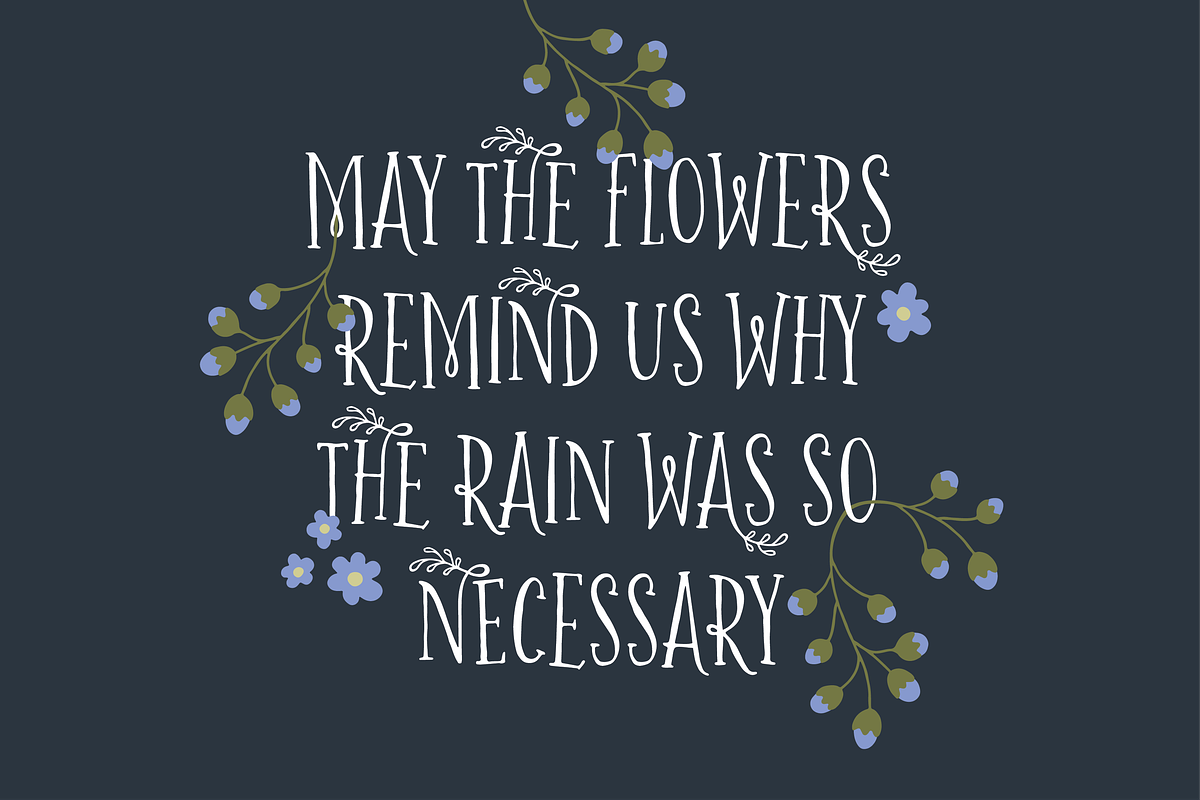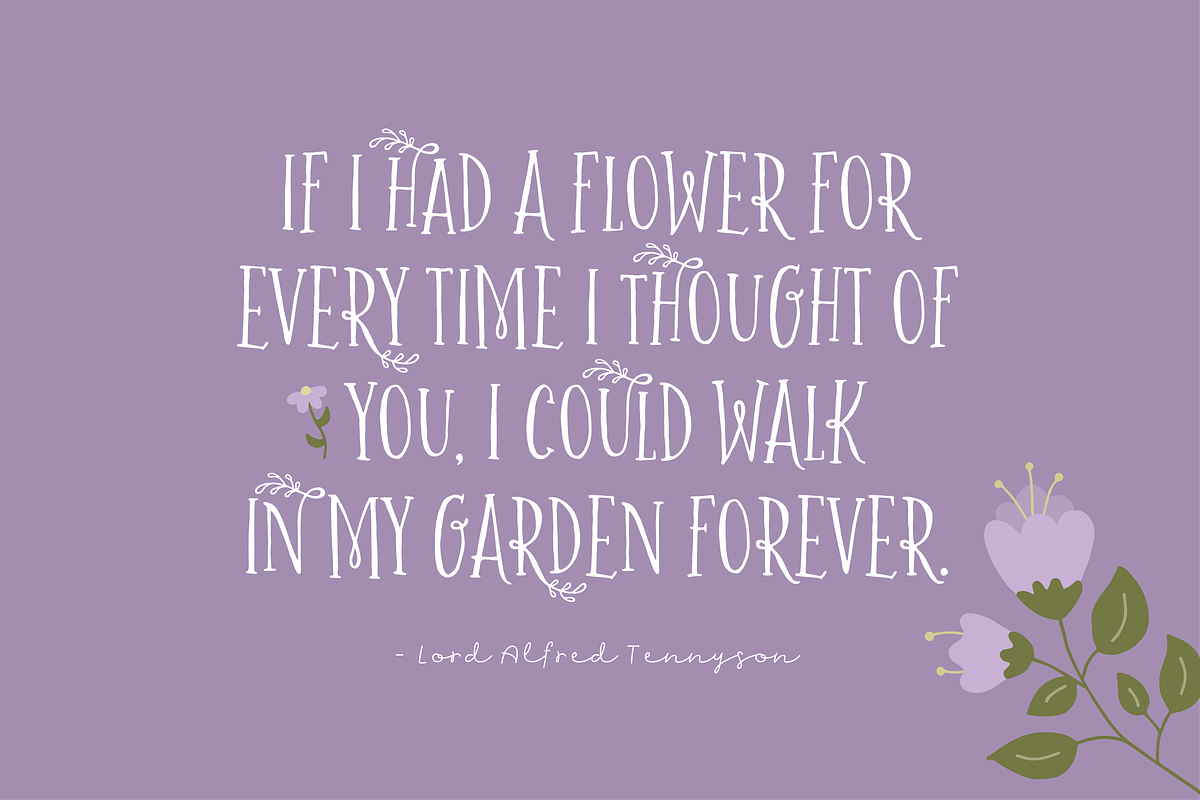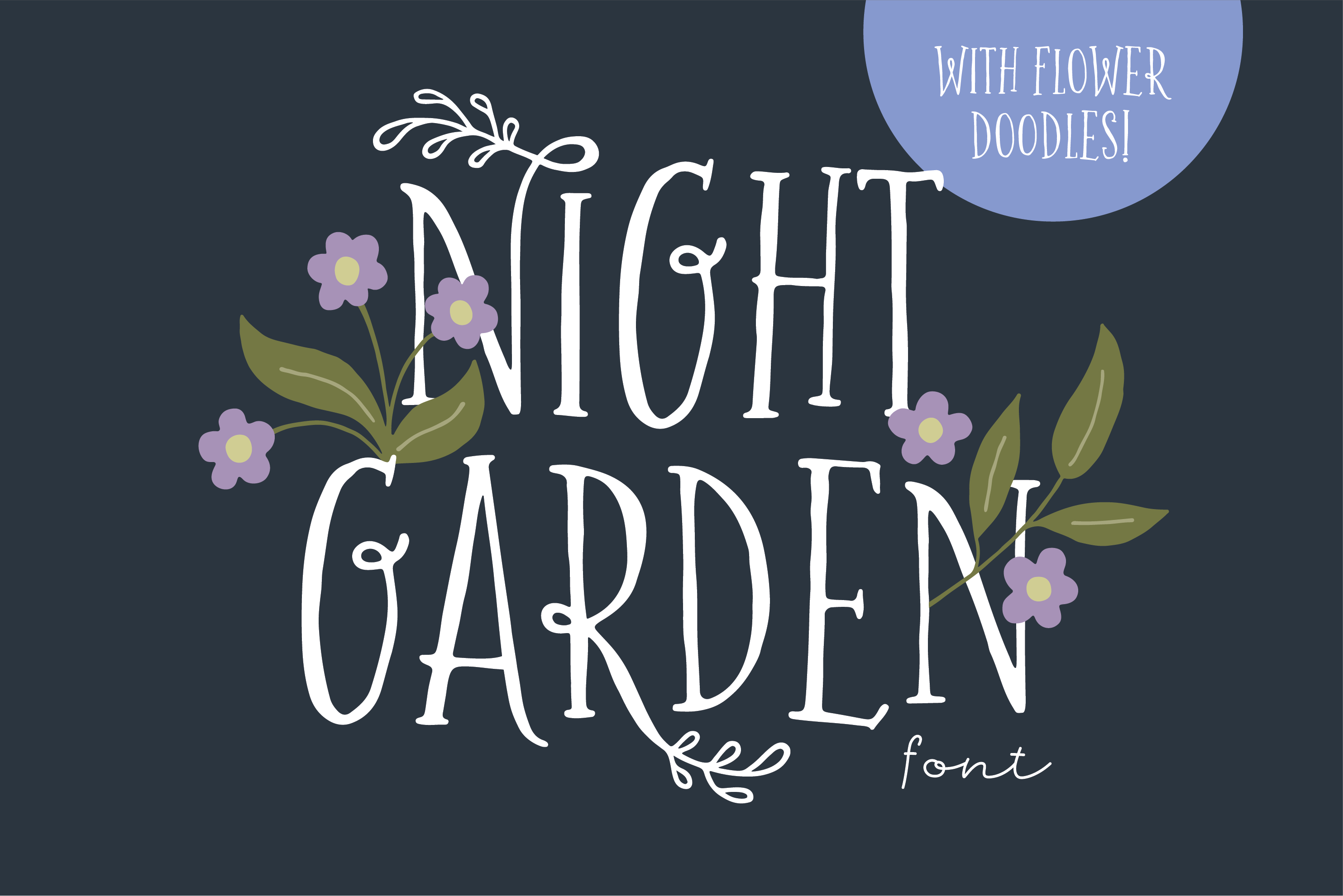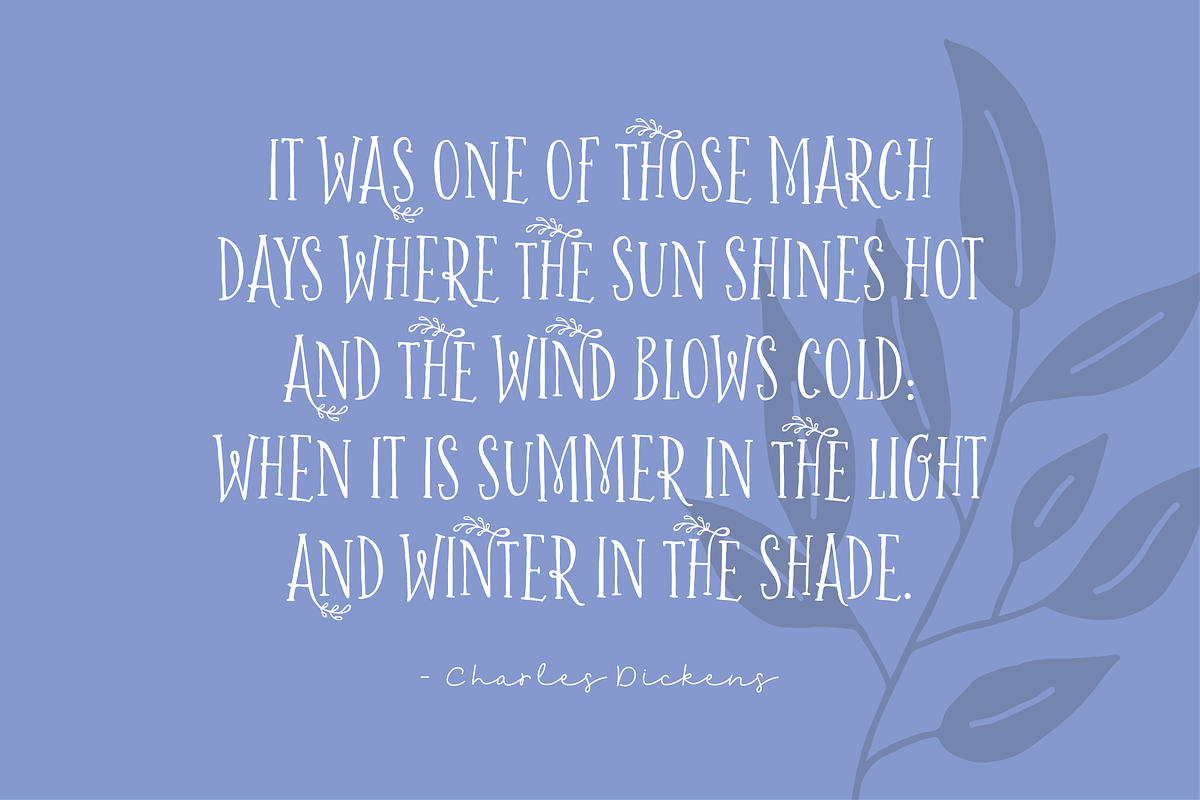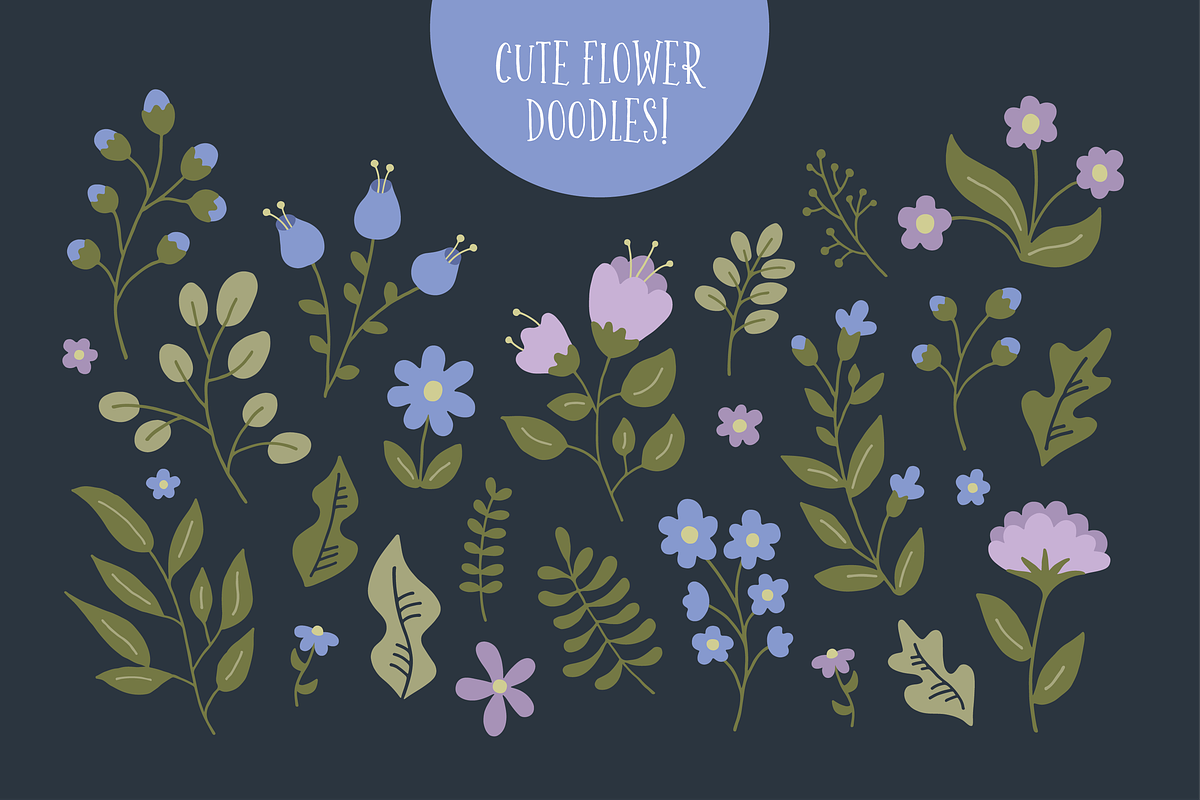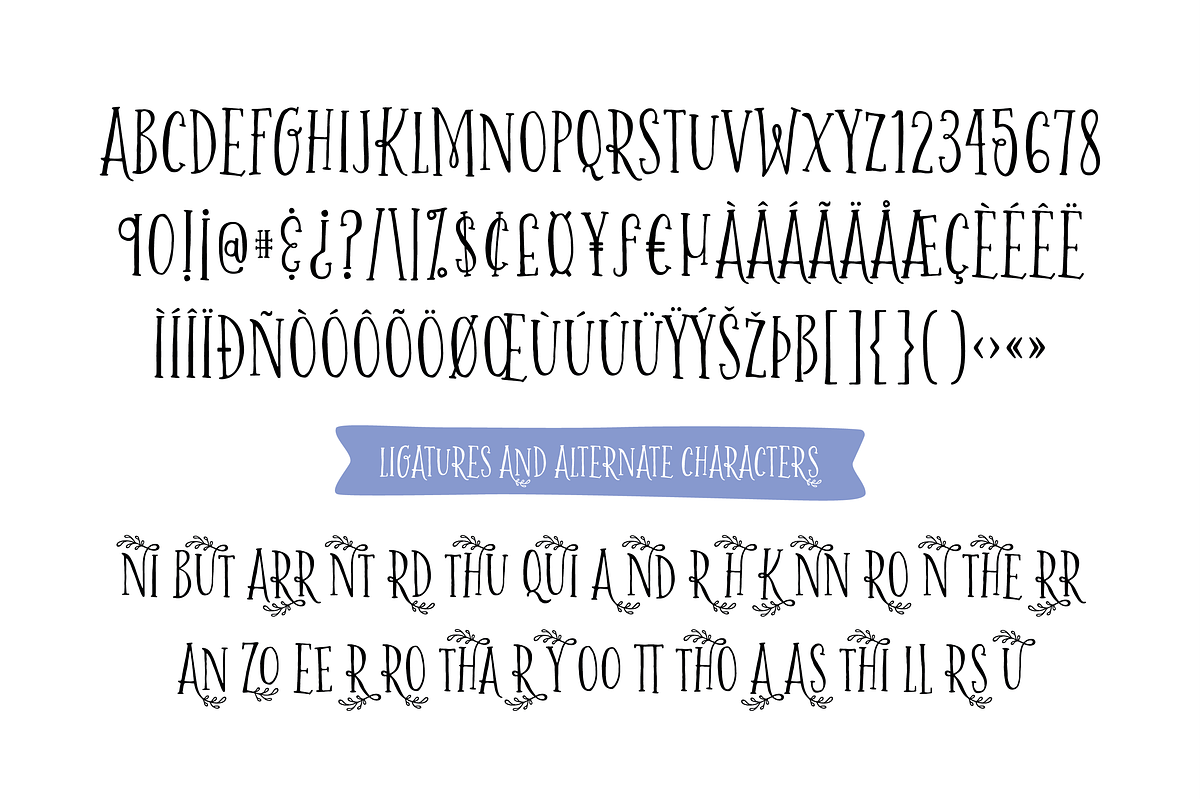
Night Garden Font
Night Garden is a whimsical, all-caps font that includes several nature-inspired ligatures and alternate characters. Ligatures will appear automatically in programs that support OpenType fonts and have the feature turned on. Also included is a bunch of cute flower doodles to brighten up your designs!